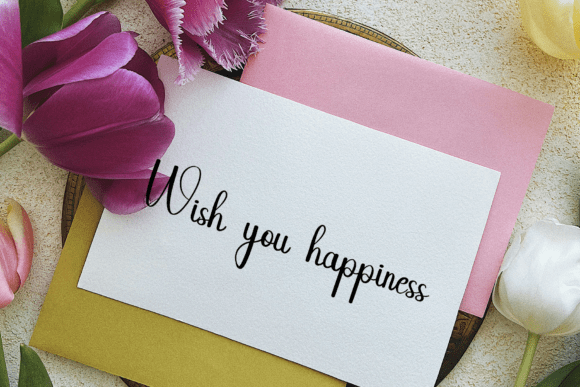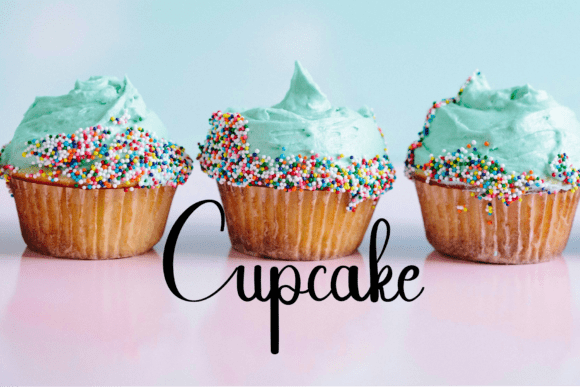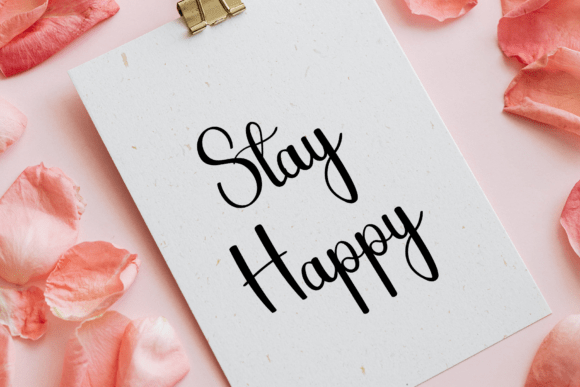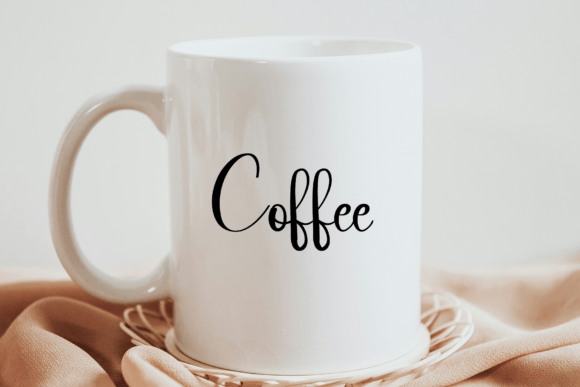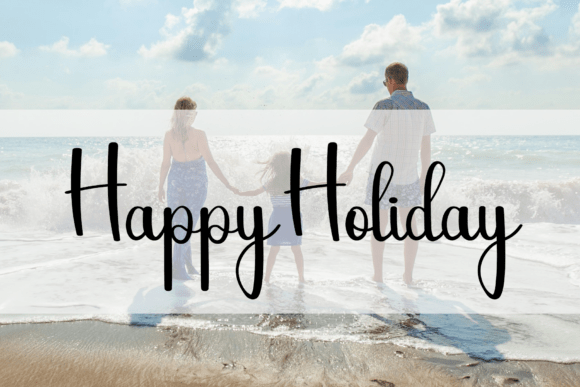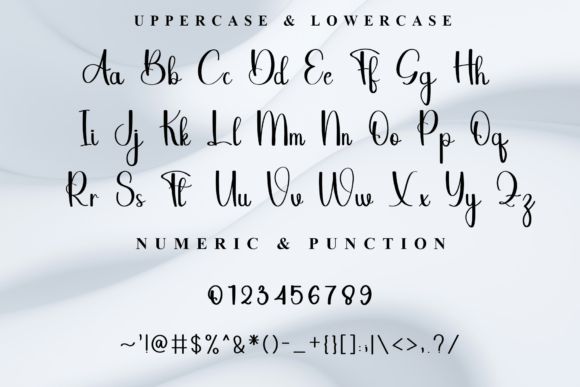
Introducing Birthday Font: The Perfect Choice for Your Celebratory Designs
Are you looking for a font that captures the warmth and joy of birthday celebrations? Look no further than Birthday Font, a casual and creative typeface that exudes friendliness and approachability. With its round, playful strokes, this font is perfect for personal projects, invitations, and social media graphics that require a relaxed and fun vibe.
The Charm of Birthday Font
Birthday Font boasts a charming, hand-drawn aesthetic that adds a unique touch to any design. Its playful and carefree nature makes it an excellent choice for designers and crafters who want to create engaging and celebratory content. Whether you’re designing a birthday invitation, a social media post, or a craft project, this font is sure to bring a smile to people’s faces.
• Hand-Drawn Aesthetic: The font’s charming, hand-drawn look adds a personal touch to any design, making it perfect for crafters and designers who value uniqueness.
• Playful and Relaxed: Birthday Font’s round, playful strokes create a relaxed and approachable feel, ideal for personal projects and social media graphics.
Use Cases for Birthday Font
Birthday Font is a versatile typeface that can be used in a variety of design projects, including:
• Birthday Invitations: Create personalized and festive birthday invitations that set the tone for a fun celebration.
• Social Media Graphics: Use Birthday Font to design engaging social media posts, such as birthday greetings, announcements, and promotions.
• Craft Projects: Add a personal touch to your craft projects, such as handmade cards, gift tags, and DIY decorations.
• Personal Projects: Use Birthday Font to create unique and playful designs for personal projects, such as photo albums, scrapbooking, and journaling.
Tips for Using Birthday Font
To get the most out of Birthday Font, here are some tips to keep in mind:
• Experiment with Colors: Birthday Font looks great with bright and bold colors, so don’t be afraid to experiment and find the perfect color scheme for your design.
• Mix and Match: Combine Birthday Font with other fonts to create a unique and playful design.
• Keep it Simple: Don’t overcomplicate your design – Birthday Font’s playful nature shines best when used in simple and clean designs.
Birthday Font is a fantastic choice for designers and crafters who want to add a touch of warmth and friendliness to their designs. With its charming, hand-drawn aesthetic and playful strokes, this font is perfect for birthday celebrations, personal projects, and social media graphics. So why not give Birthday Font a try and bring a smile to people’s faces with your designs?